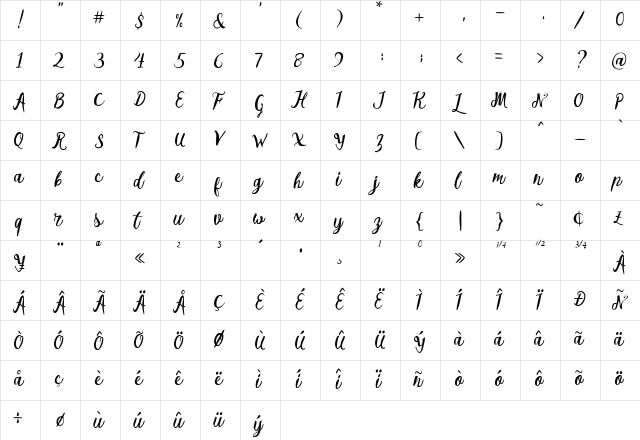
Melliana Script Regular
Design Context for Melliana Script Typeface
Melliana Script flows with the natural rhythm of handwritten lettering, making it ideal for designs that call for warmth and personal expression.
Font Pairing: Combine Melliana Script with a simple geometric sans for maximum contrast — the tension between flowing curves and clean structure is a classic typographic pairing.
Pro Tip: Use Melliana Script for short runs of text — names, titles, or taglines. Extended body copy in script faces tires the eye quickly.